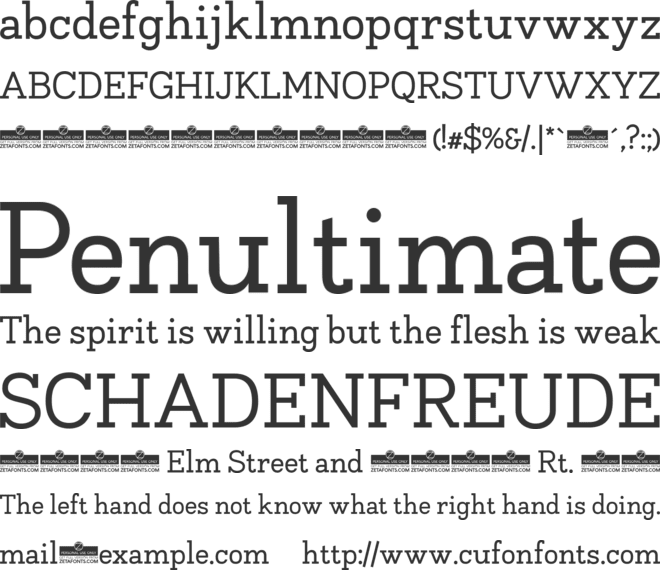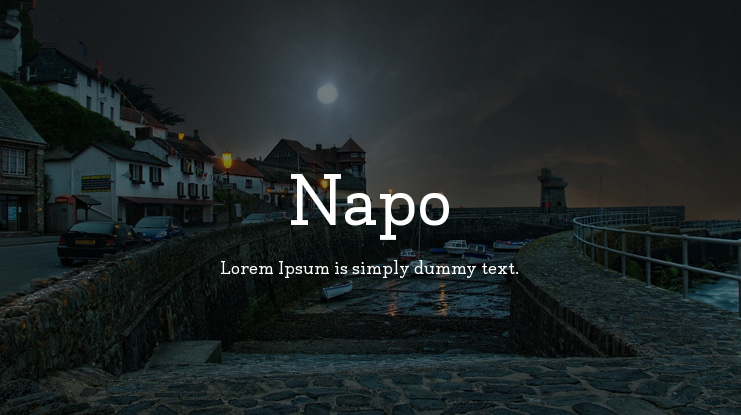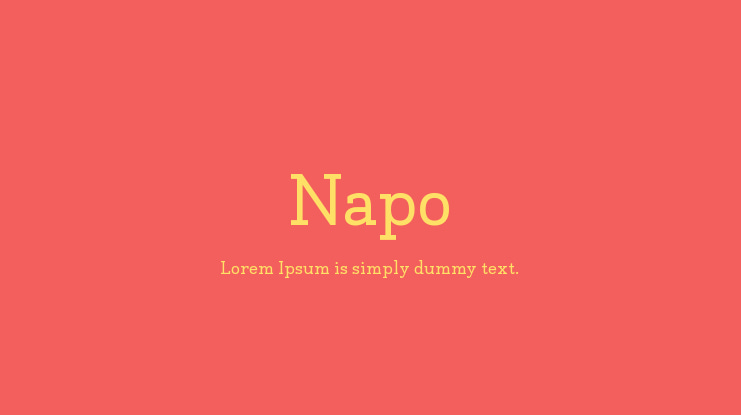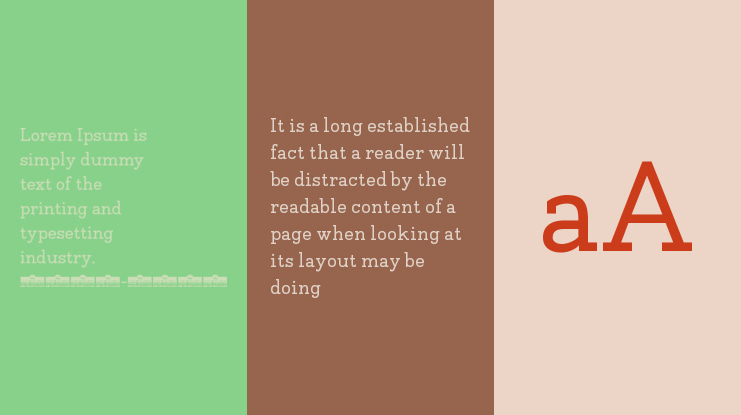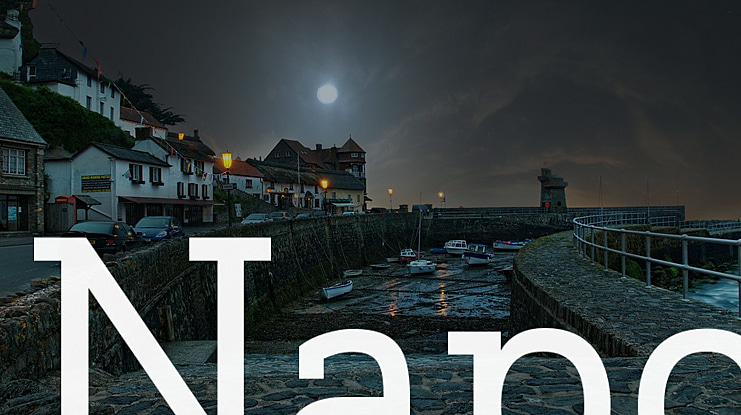
Napo is a slab serif typeface designed for display and bodycopy use. It comes in four weights with italics and covers over forty languages using the latin alphabet. Leon is the companion sans-serif of Napo.